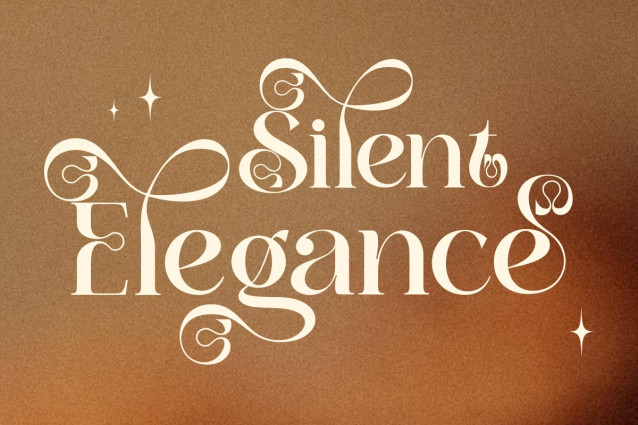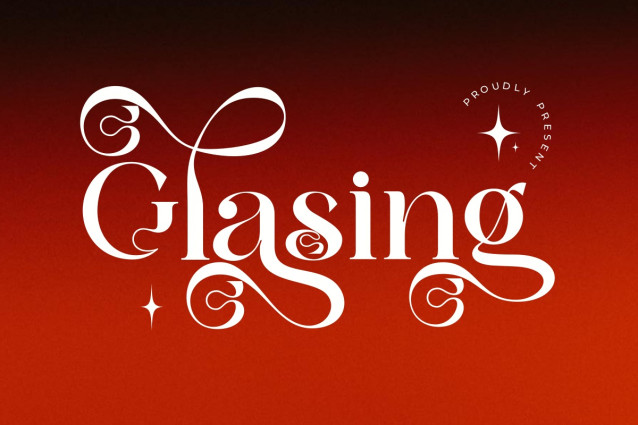
Glasing Font
Glasing Font is a serif typeface that blends timeless elegance with a modern touch. Its refined contrasts and graceful serif details make it perfect for editorial design, branding, magazines, and packaging that seek a sophisticated and professional look. Designed with balance and style, Glasing brings a sense of luxury and classic charm to both headlines and body text